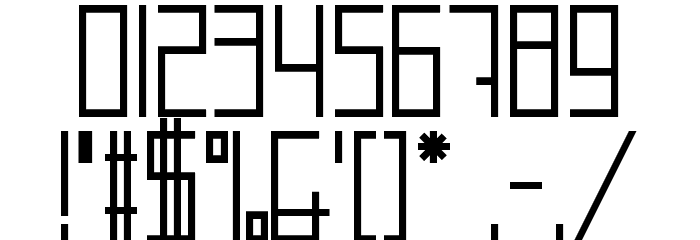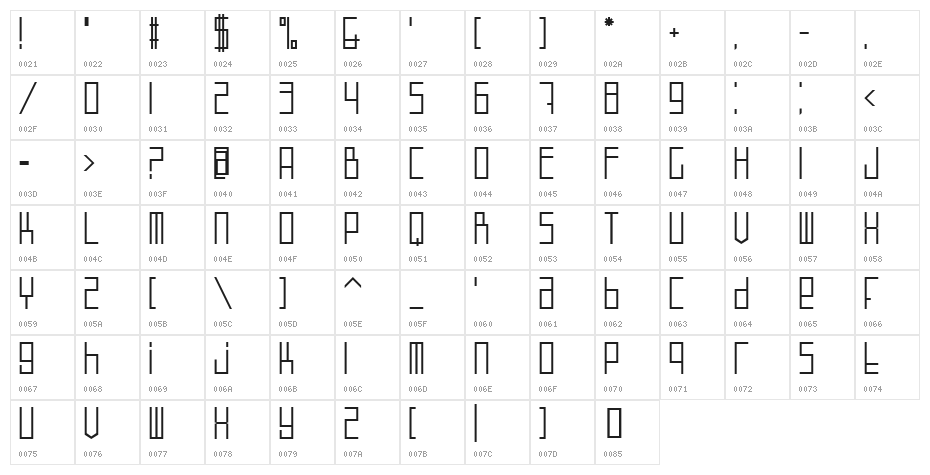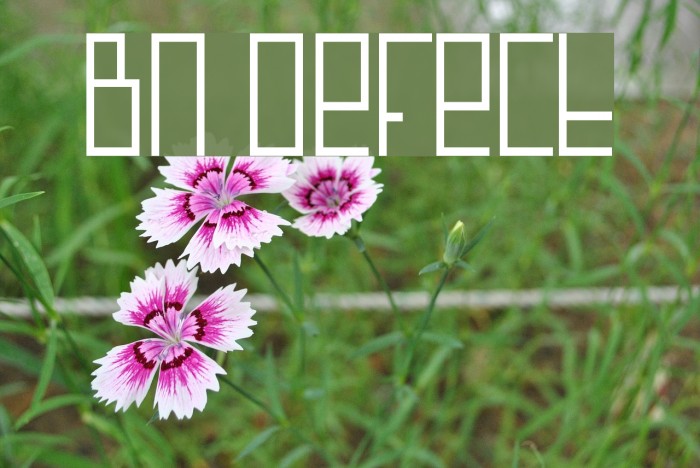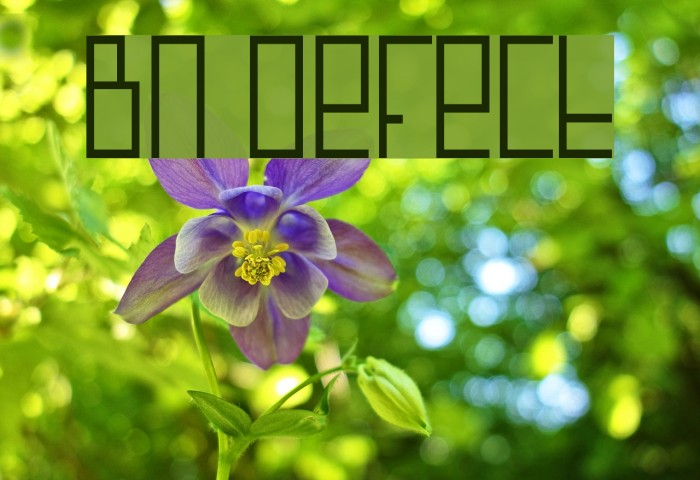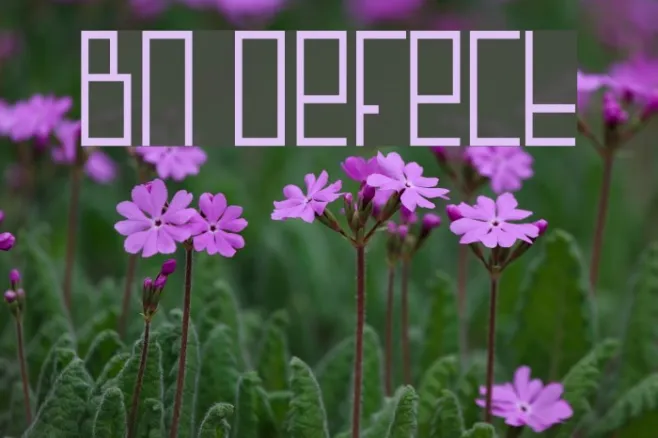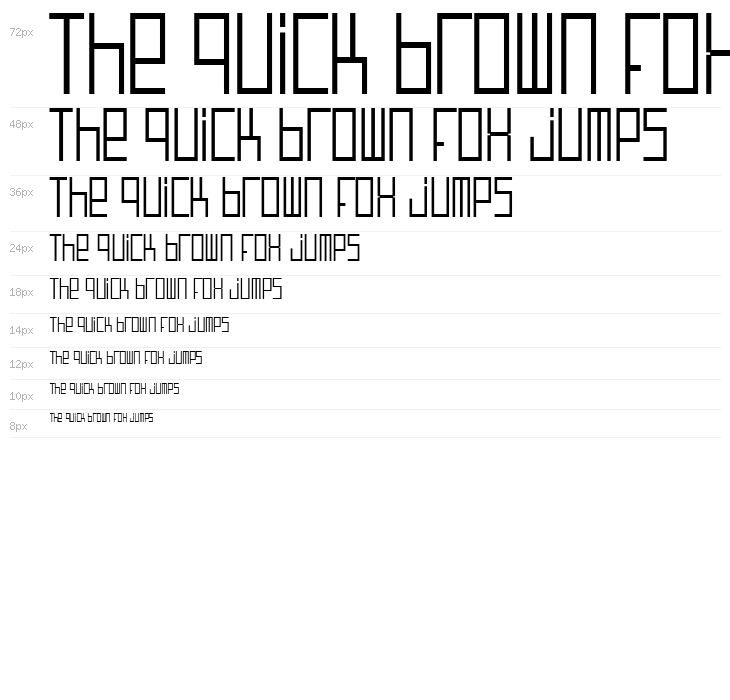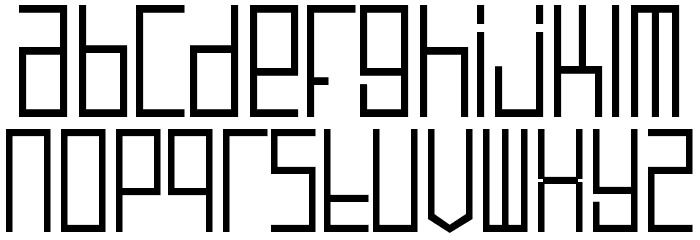
BN Defect Font
BN Defect Description
This font features a geometric and grid-like structure, characterized by its uniform line thickness and angular design. Each character is constructed with straight lines and right angles, giving it a mechanical and futuristic appearance. The uppercase and lowercase letters maintain a consistent height, while the numerals and special characters follow the same structural theme. The font's design is minimalistic, with no curves or embellishments, emphasizing a clean and modern aesthetic. Its distinct style makes it stand out, suitable for projects that require a bold and unconventional look.
| Proposed Projects | Ideal for tech-related branding, modern art installations, digital interfaces, and futuristic-themed posters. |